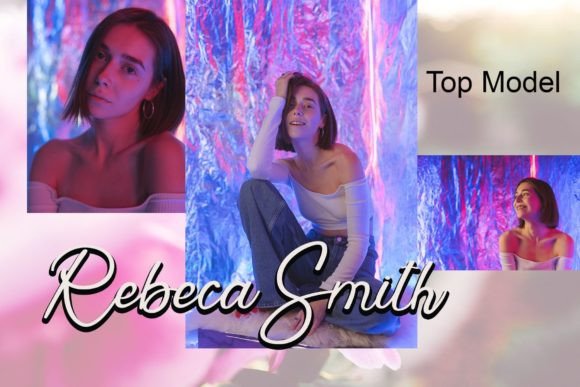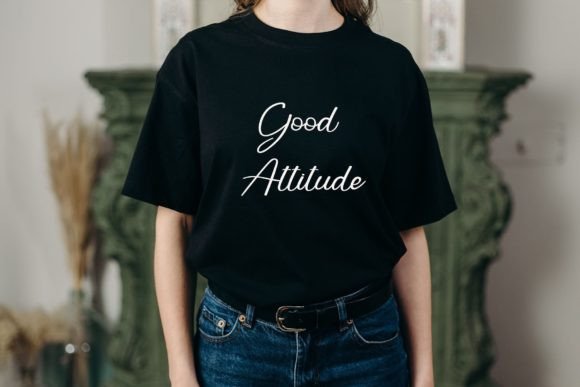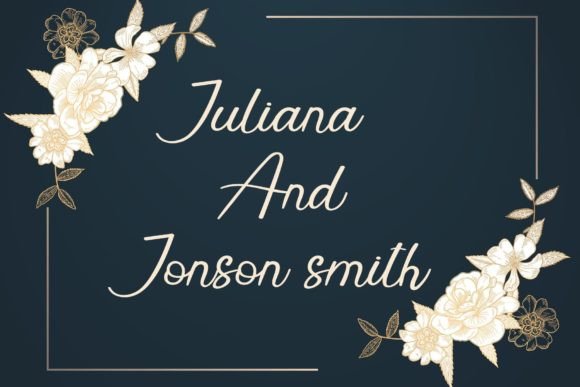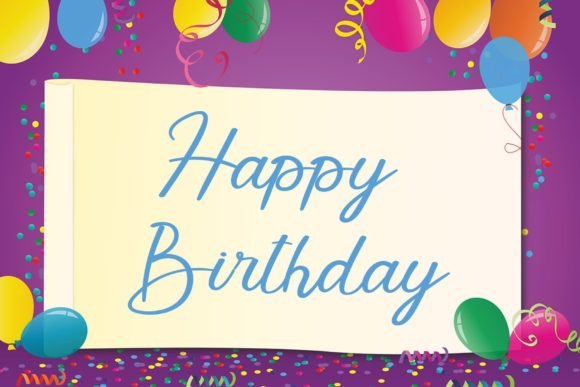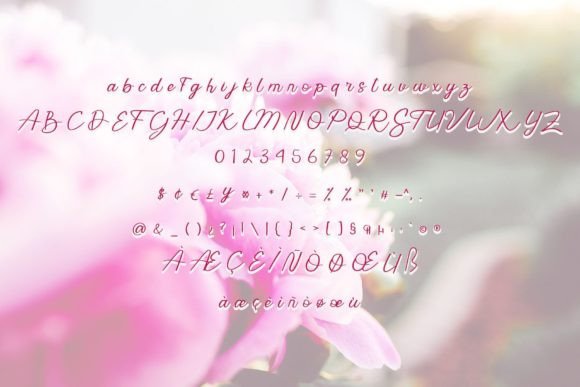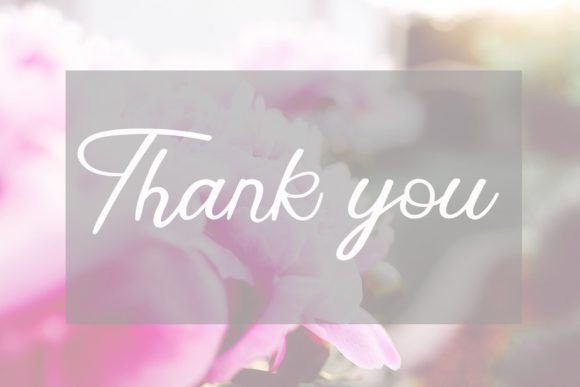
Anastasia Font
About Anastasia Font
“Anastasia” is a delightful and friendly handwritten font that brings a sense of playfulness and creativity to your designs. With its charming and casual style, this font has the ability to transform any design concept into a standout masterpiece. Whether you’re working on greeting cards, invitations, posters, social media graphics, or any other project that requires a touch of whimsy, “Anastasia” is the perfect choice to add a lively and cheerful vibe.
The spontaneous and organic feel of “Anastasia” gives it an authentic handwritten appearance, making your text look as though it was crafted with a pen or marker. This natural charm enhances the overall appeal of your designs, creating a warm and inviting atmosphere for your audience.
The versatility of “Anastasia” allows you to experiment with different colors, sizes, and styles, enabling you to customize your designs according to your preferences. Whether you want a playful and vibrant look or a softer and more elegant touch, this font can adapt to various themes and moods, making it suitable for a wide range of creative projects.
By incorporating “Anastasia” into your designs, you can infuse them with a sense of joy and friendliness. This font not only adds visual appeal but also conveys a lighthearted and approachable vibe, making your designs more relatable and engaging to your audience.
Let the unique charm of “Anastasia” inspire your creativity and bring your design ideas to life. Use this font to create lovely and captivating designs that leave a lasting impression and capture the hearts of your viewers. With “Anastasia,” your designs are sure to stand out and make a memorable impact.